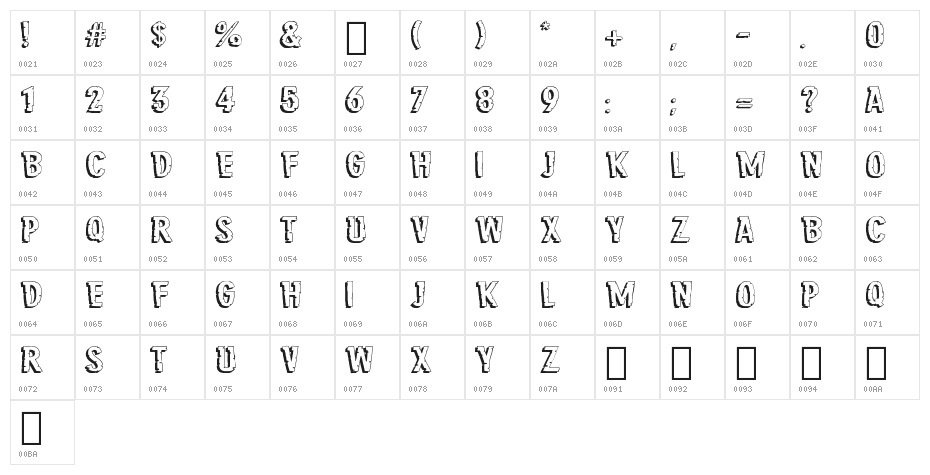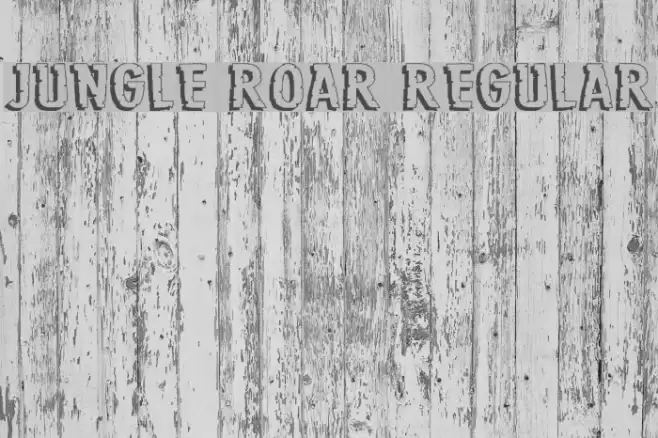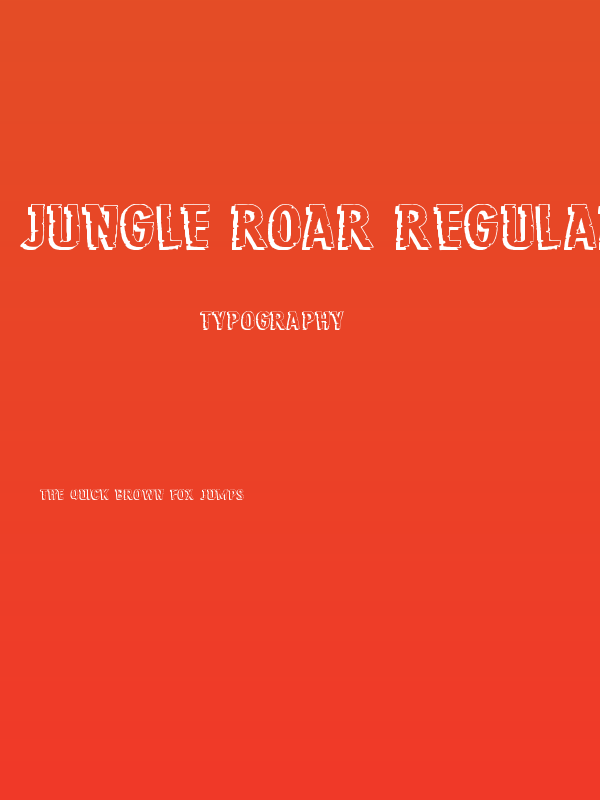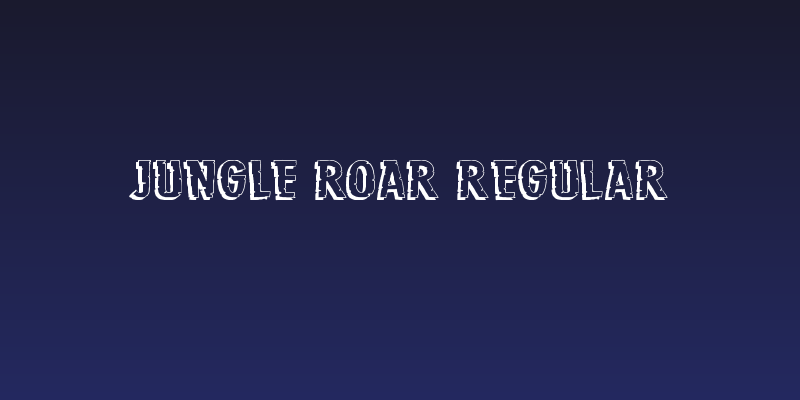
Jungle Roar Regular Font
Jungle Roar Regular Description
This font features a bold, adventurous style with a rugged, hand-drawn appearance. The letters have a thick, uneven outline that gives them a dynamic and energetic feel, reminiscent of jungle themes. The uppercase and lowercase letters maintain a consistent style, with a playful yet strong presence. The numbers and special characters follow the same design, ensuring uniformity across all glyphs. This font is perfect for projects that require a bold statement or a wild, untamed aesthetic.
| Proposed Projects | Ideal for adventure-themed posters, children's book covers, video game titles, and branding for outdoor products. |